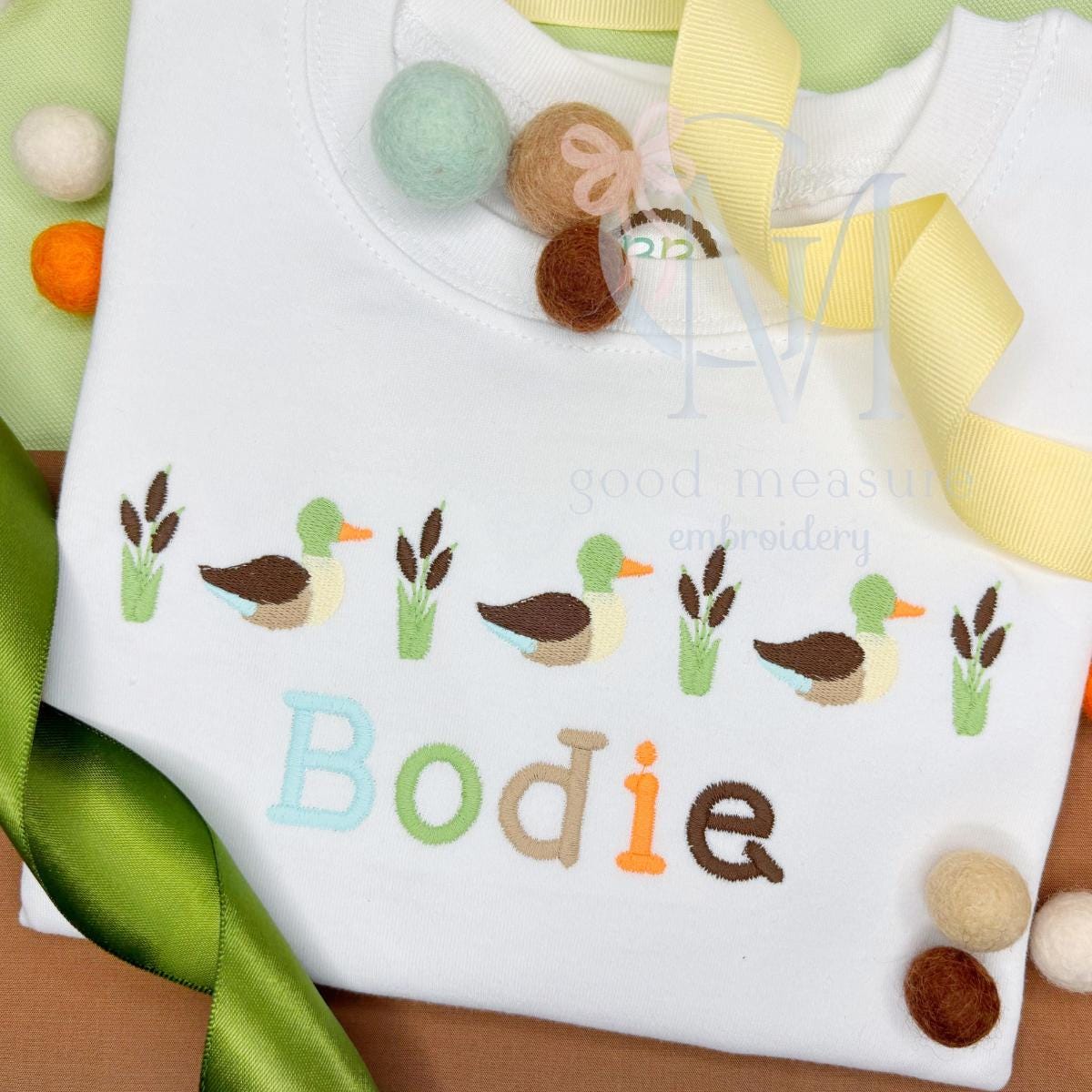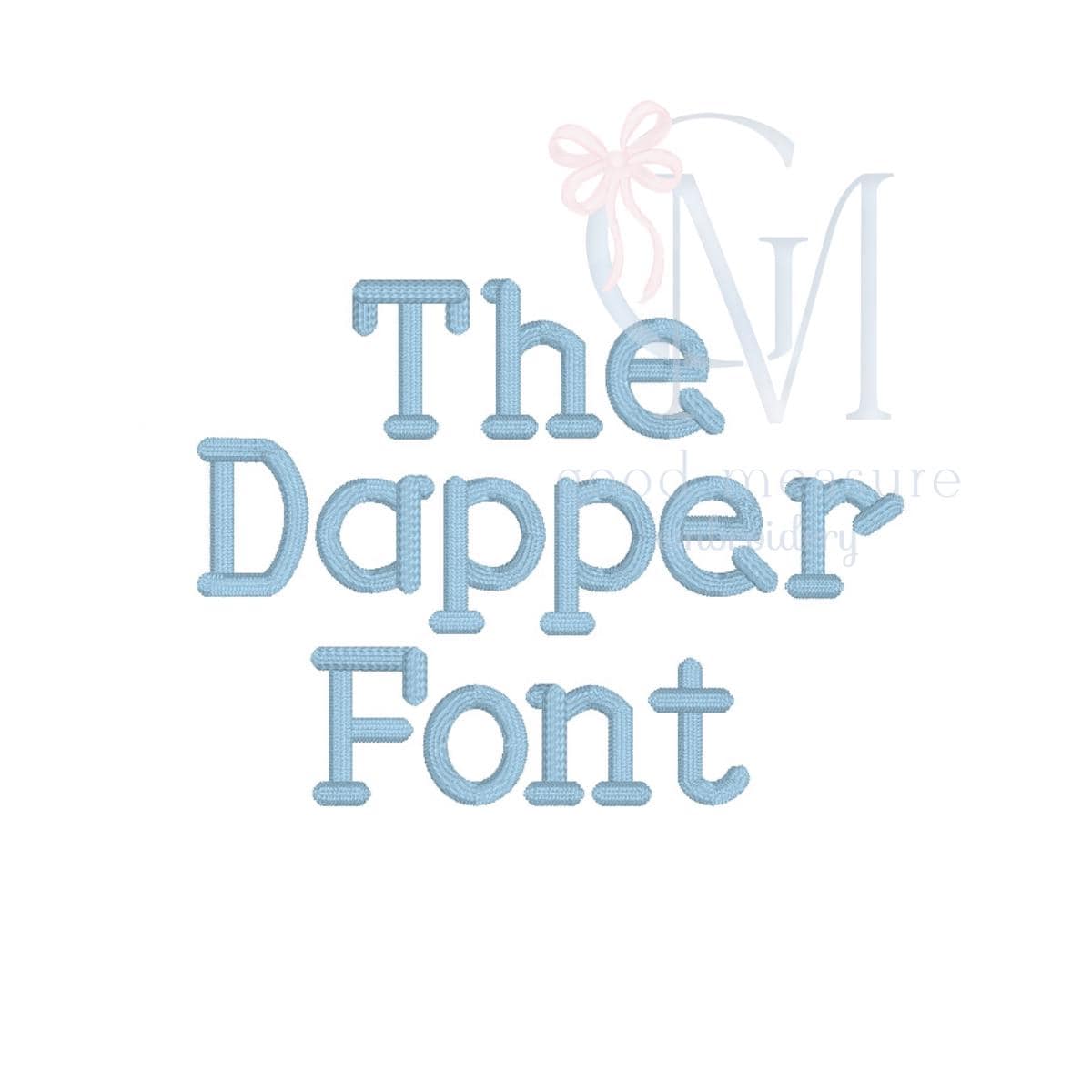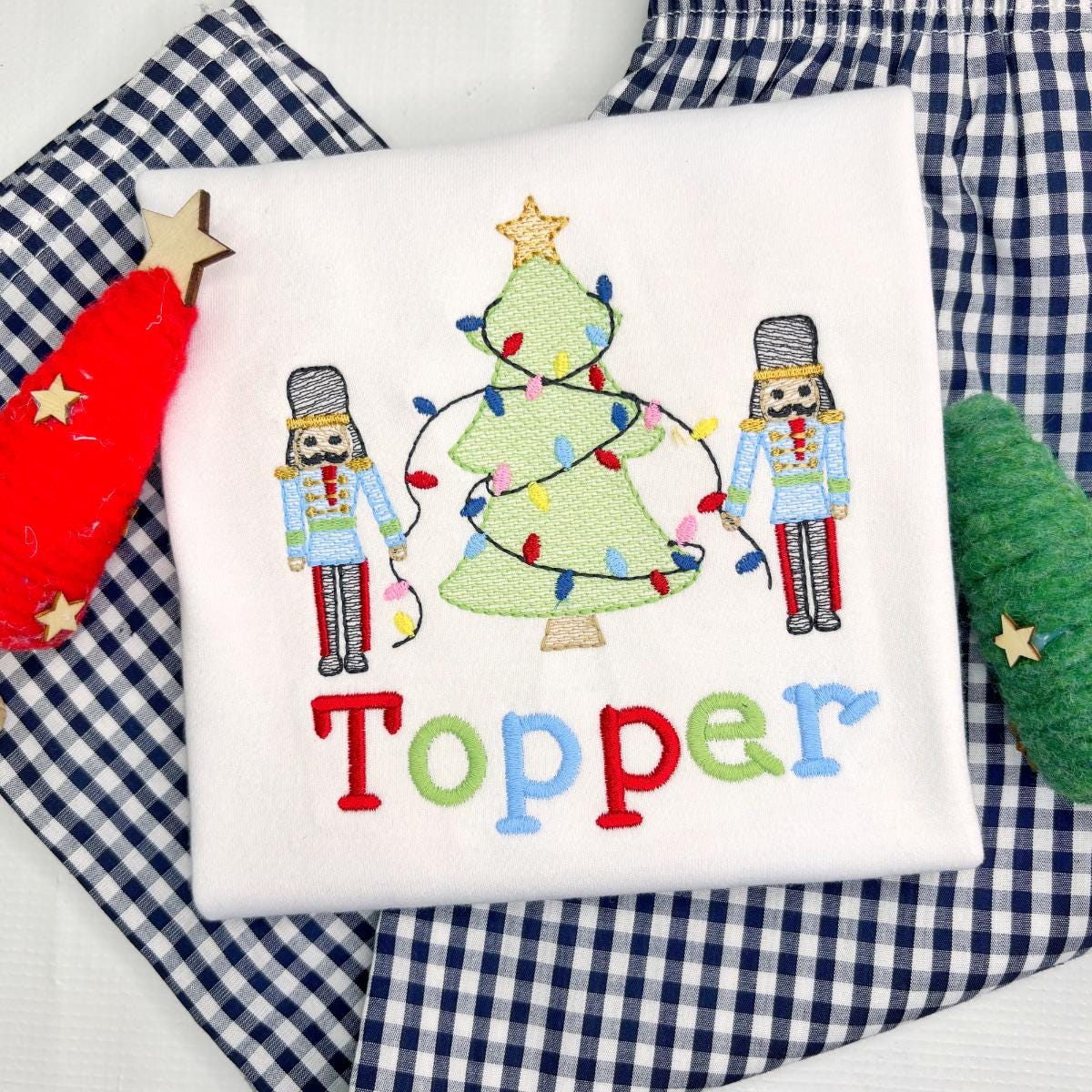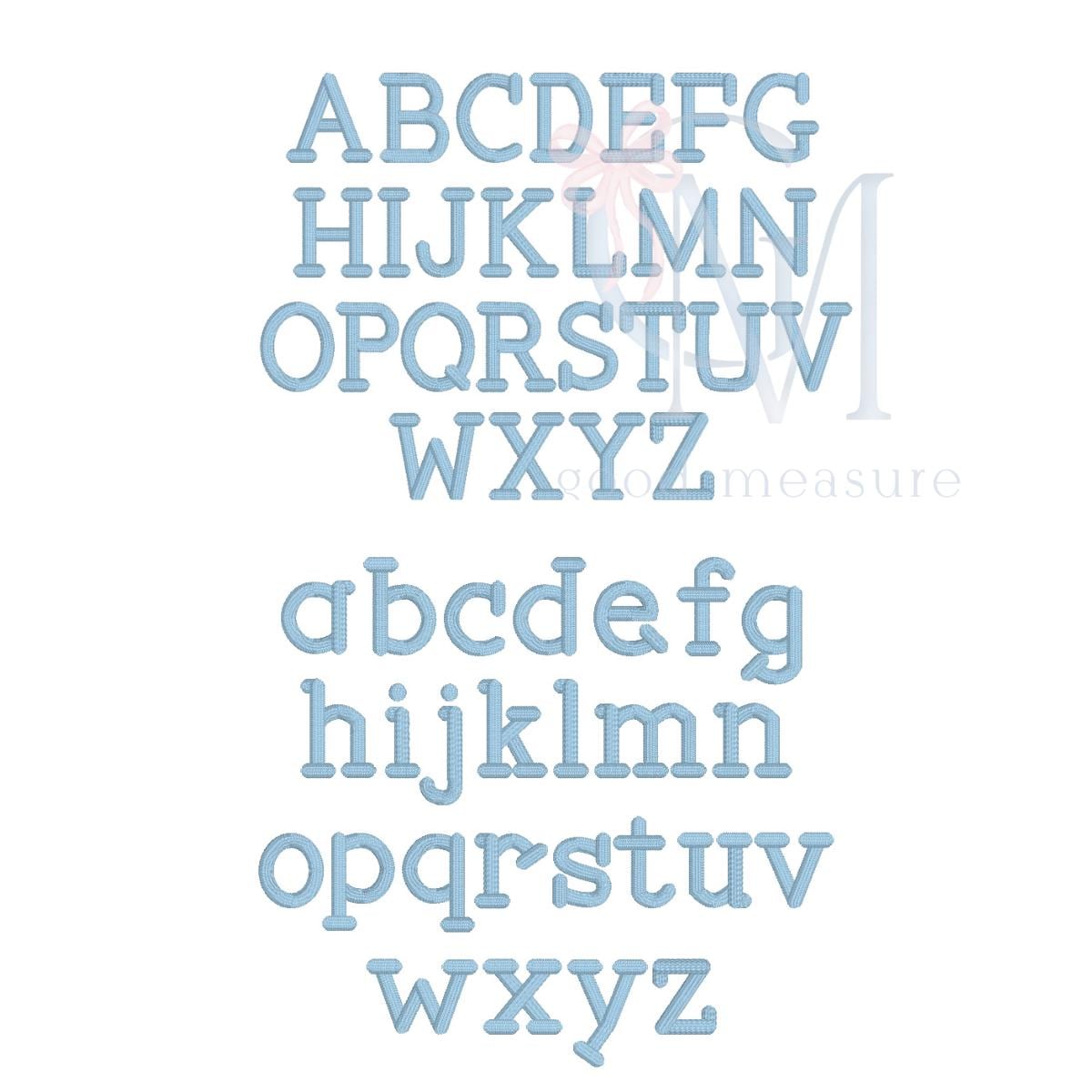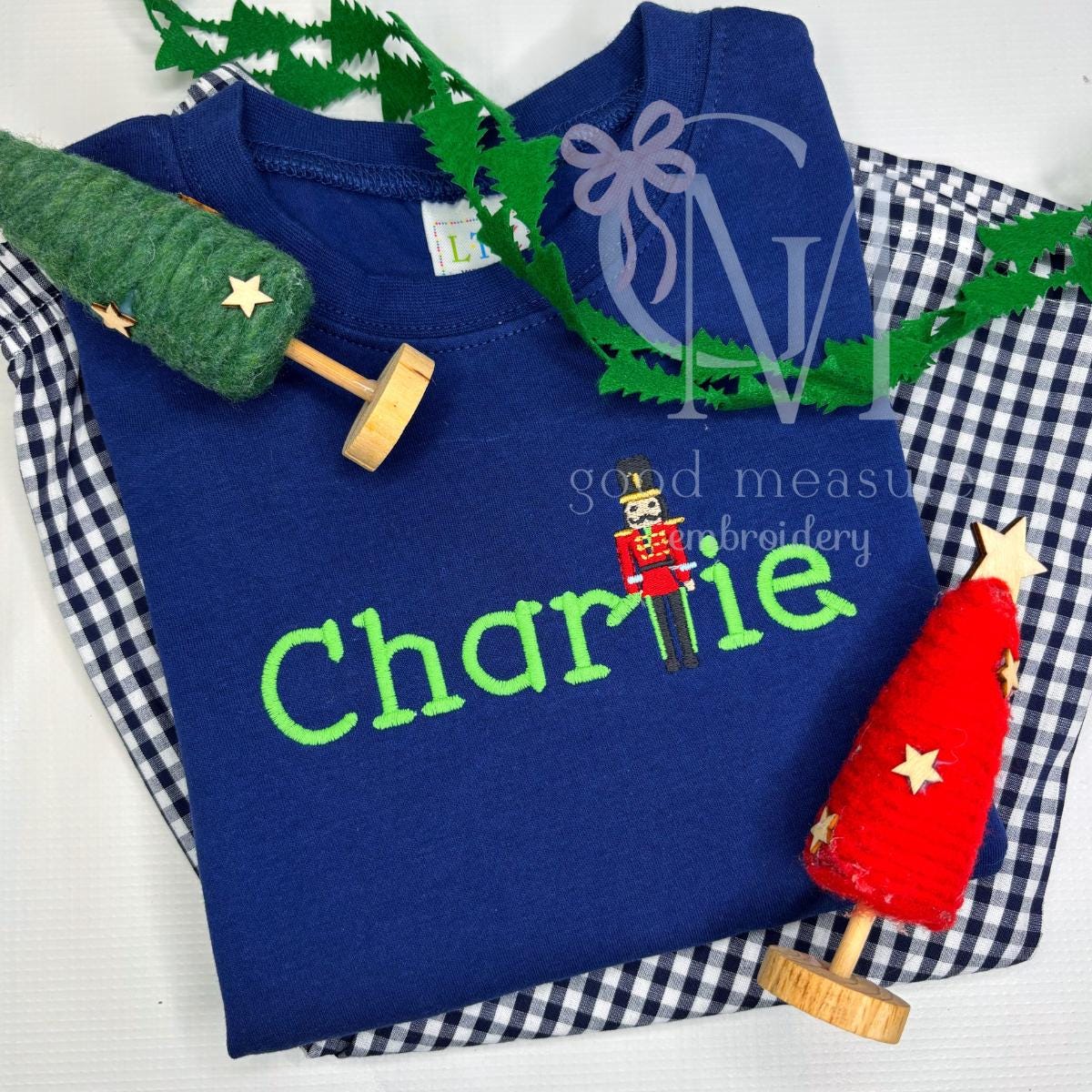
The Dapper Font Satin Serif Machine Embroidery Design
This file includes capital and lower case letters (A-Z) for the Dapper Font - in sizes 1, 1.25, 1.5, 1.75, 2 and 2.25 inches.